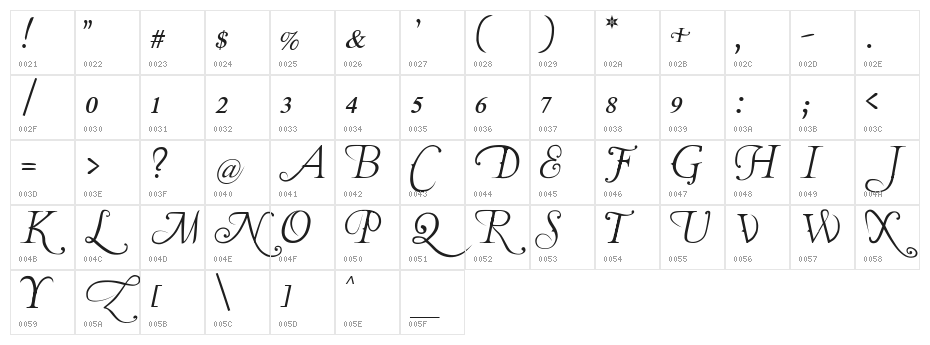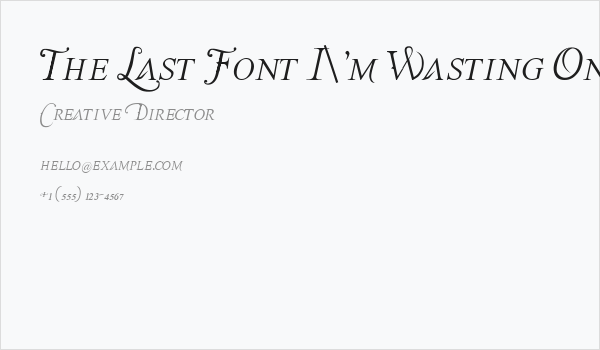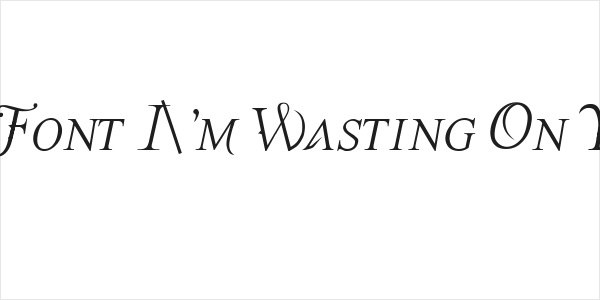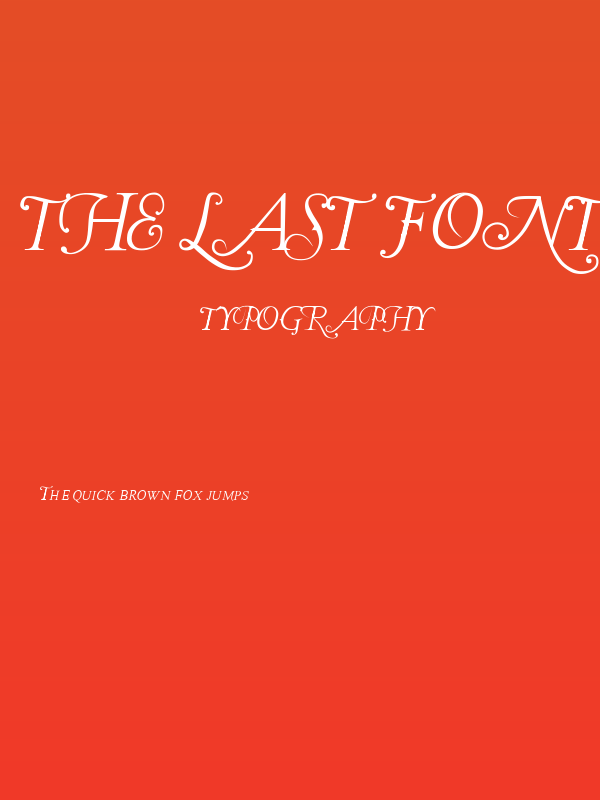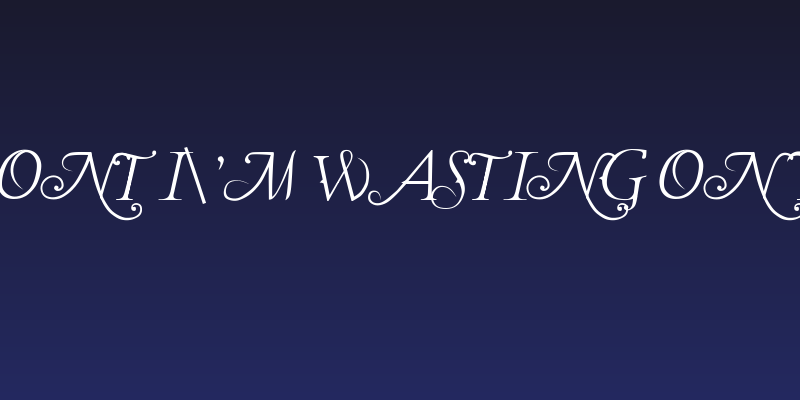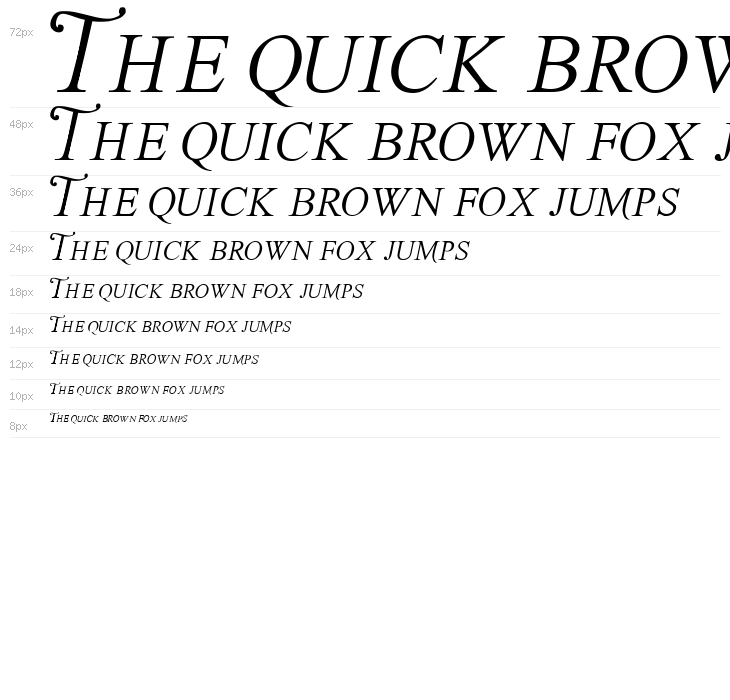
The Last Font I'm Wasting On You Italic Font
The Last Font I'm Wasting On You Italic Description
This font features an elegant and sophisticated design with a distinct italic style. The uppercase letters exhibit a graceful flow with ornate swashes, particularly noticeable in characters like 'C', 'G', and 'Q'. The lowercase letters maintain a consistent slant, enhancing the font's fluidity and charm. The numerals are styled to match the overall aesthetic, with a slight tilt and refined curves. Special characters are designed with intricate details, adding to the font's decorative appeal. The font's overall appearance is both classic and artistic, making it suitable for projects that require a touch of elegance.
| Overall Style | Classic, Decorative |
| Proposed Projects | Ideal for wedding invitations, luxury branding, elegant packaging, and artistic posters. |